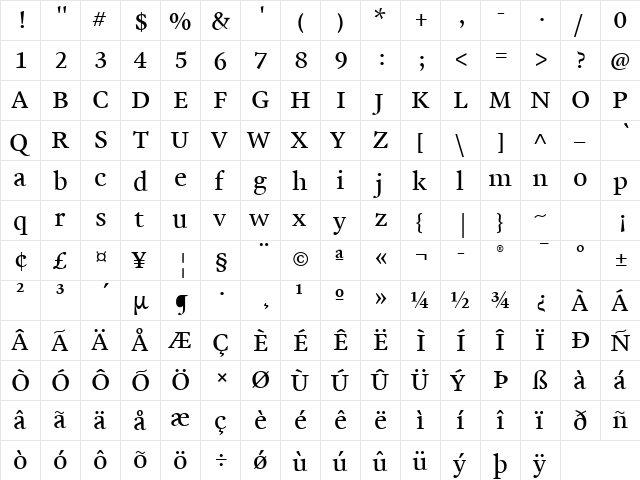
Malabar Pro Regular
| Foundry | Linotype GmbH |
| Designer | Dan Reynolds |
Design Context for Malabar Pro Typeface
Malabar Pro takes a measured approach to typography — its balanced proportions and neutral character make it a reliable workhorse for both digital and print work.